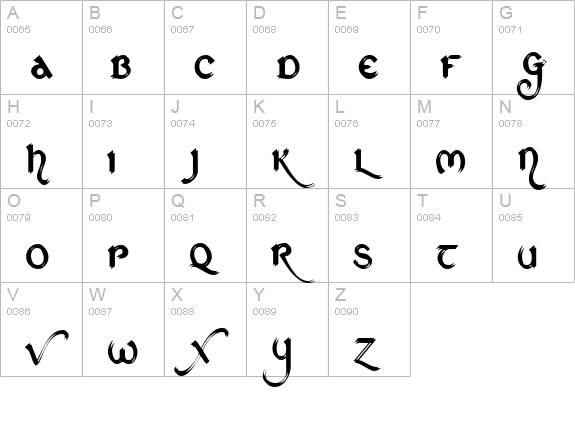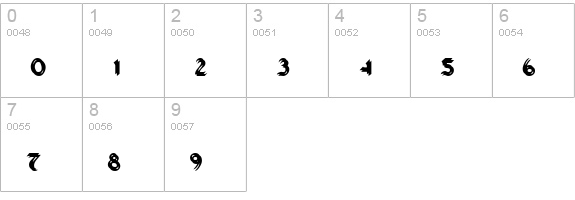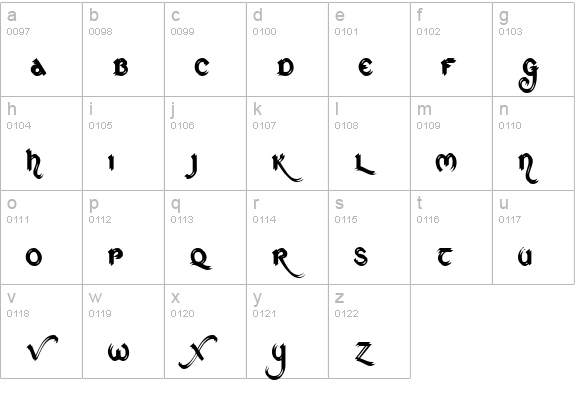
St Charles Ornate Font Details
Introducing St Charles Ornate, a truly captivating and ornamental font that will transport your designs to a world of elegance and sophistication. This font exudes a timeless charm, taking inspiration from the intricate details of classic typography. With its delicate curves and decorative flourishes, St Charles Ornate is sure to make a lasting impression on any project. The beauty of St Charles Ornate lies in its versatility. Whether you're designing wedding invitations, creating a stunning logo, or adding a touch of refinement to your branding materials, this font will effortlessly elevate your creations. Its intricate details and graceful letterforms bring a touch of opulence to any design, making it perfect for those seeking a touch of luxury. What makes St Charles Ornate even more remarkable is its availability. This font is freely available to download at FontsMarket.com, allowing you to channel its beauty into your designs without any restrictions. With just a few clicks, you can add a touch of grandeur to your projects, all without breaking the bank. So why wait? Download St Charles Ornate today and let its exquisite details and timeless charm take your designs to new heights. Whether it's a wedding invitation, a logo, or any other creative endeavor, this font will effortlessly captivate your audience and leave a lasting impression. Don't miss out on the opportunity to add a touch of elegance to your designs with this freely available font from FontsMarket.com.